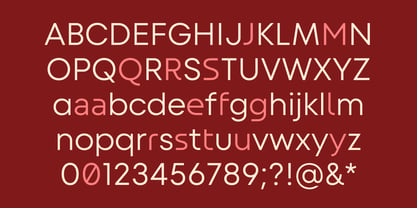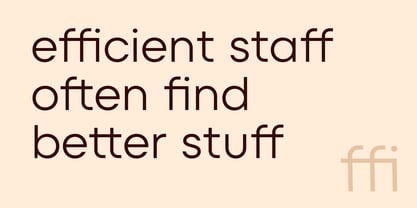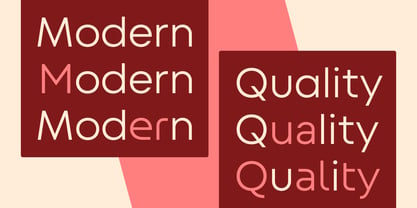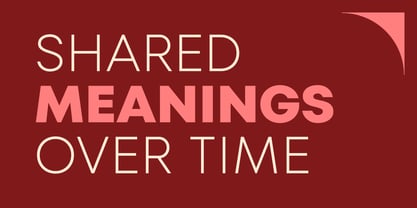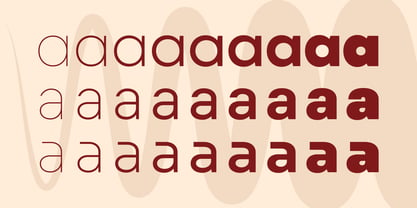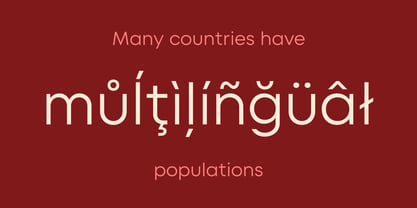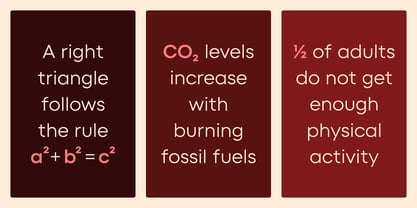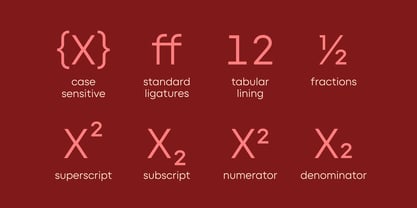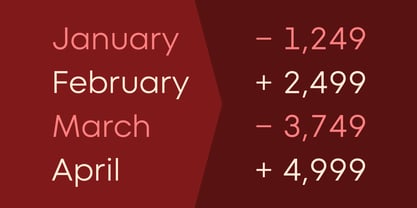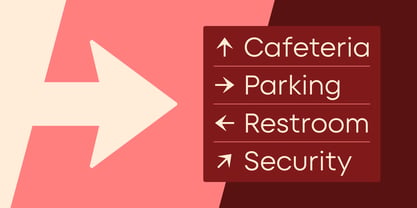
Gizo
La famille de polices Gizo a été conçue par Sukirman et publiée par Sanatype. Gizo contient 19 styles et options de package familial. En savoir plus sur cette famille
Gizo is a modern sans serif typeface designed with clarity, balance, and versatility in mind. Built on clean geometric foundations and refined proportions, Gizo delivers a neutral voice that adapts seamlessly across branding, editorial, UI, and digital applications. Its restrained character and consistent rhythm ensure strong readability at both display and text sizes, making Gizo a reliable choice for contemporary design systems that value simplicity, precision, and functional elegance.